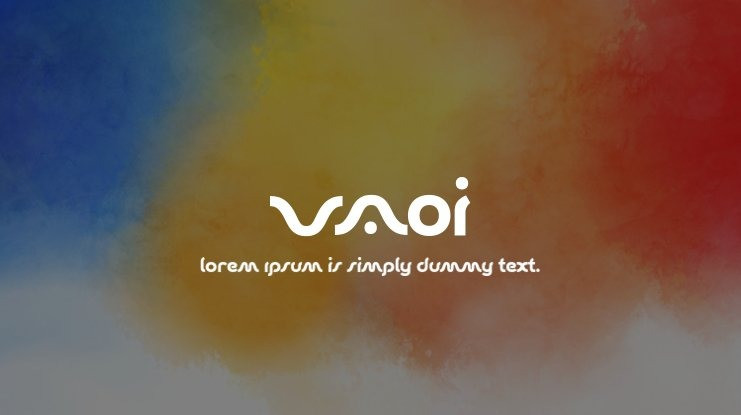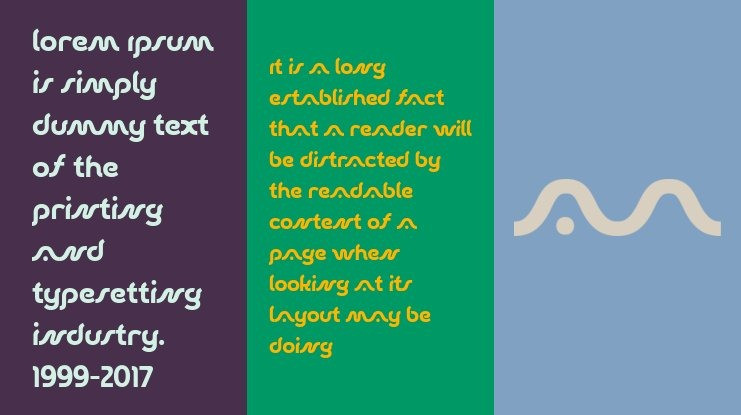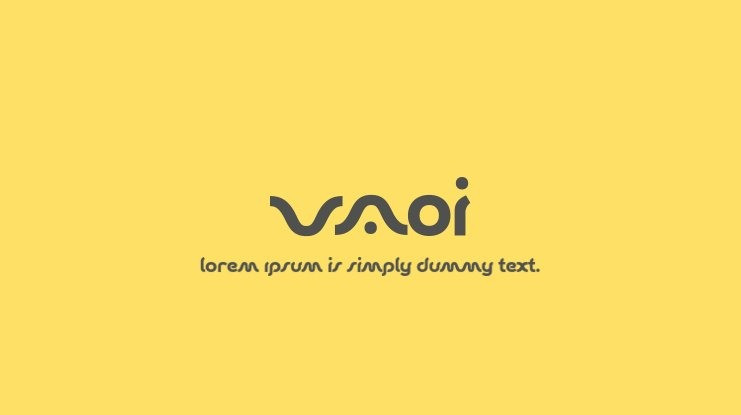
Vaoi Font
Vaoi Font, This font was created for all forms of business and branding such as clothing, logos, skate boards and others according to your needs.